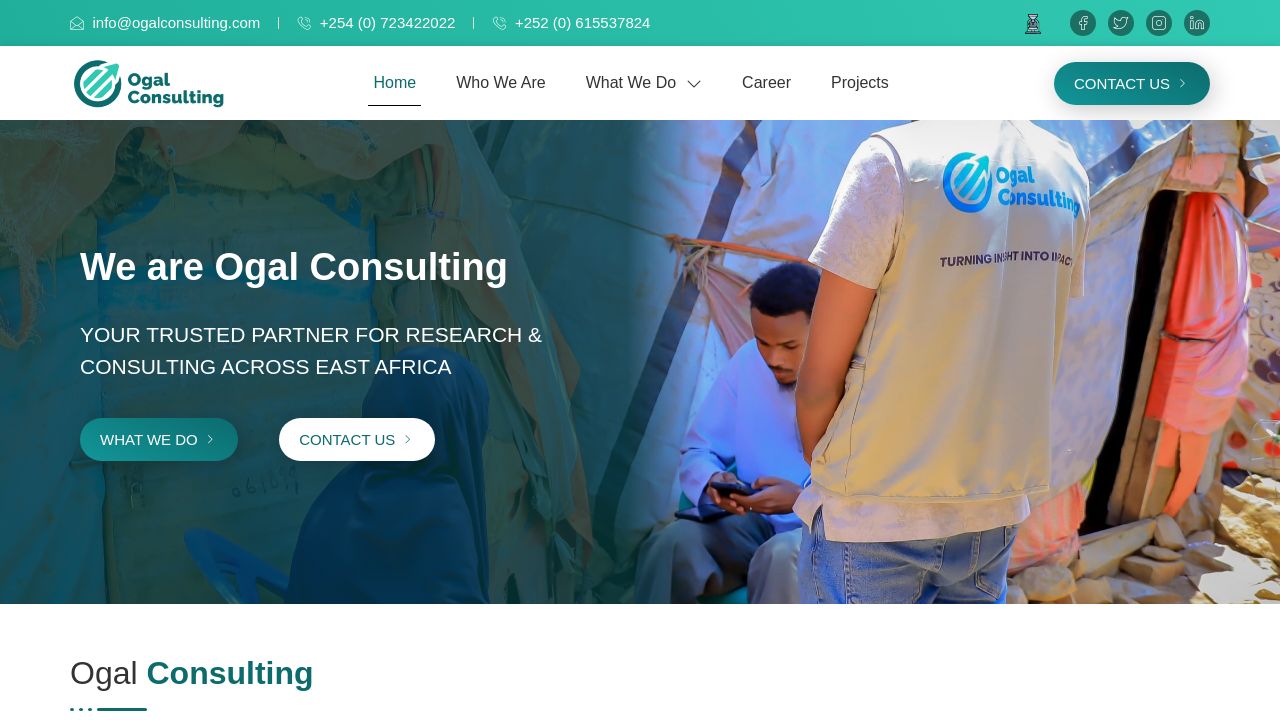
Ogal Consulting, a leader in social research and capacity building, utilizes a clear typography approach that reflects their commitment to accessibility and clarity. The primary fonts, Roboto and Verdana, are chosen for their legibility across digital platforms, catering to a diverse audience in monitoring and evaluation. The inclusion of Font Awesome 5 Brands and Font Awesome 5 Free enhances their visual communication, providing recognizable icons that align with their brand identity.
font-family: 'Font Awesome 5 Free', sans-serif;These fonts are listed in the CSS as backups. The browser only falls back to them if the main fonts above fail to load.
Ogal Consulting primarily uses Roboto and Verdana fonts for their website. They also incorporate Font Awesome 5 Brands and Font Awesome 5 Free for iconography.
Roboto offers a more modern, geometric style, while Verdana is designed specifically for screen readability. Both are effective, but your choice may depend on the context.
Ogal Consulting primarily uses the regular weight (400) for Roboto and Verdana. Font Awesome icons are also used in regular weight, ensuring visual consistency.
Font Awesome icons enhance the visual communication of Ogal Consulting by providing recognizable symbols that effectively represent their services and expertise.